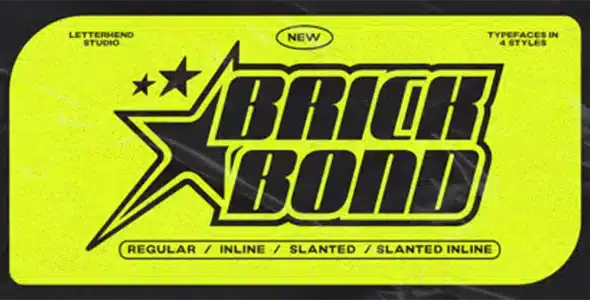
Brick Bond Font Bundle
Our collection now includes modern Y2K fonts! Introducing Brick Bond Font Bundle, with a futuristic touch that makes your designs shine. Available in contoured and slanted versions. Its bold shape draws attention to titles, headlines and key elements, ensuring that your work catches the eye.
Characteristics :
- Upper case and lower case
- Numbers and punctuation
- Alternations and ligatures
- Multilingual